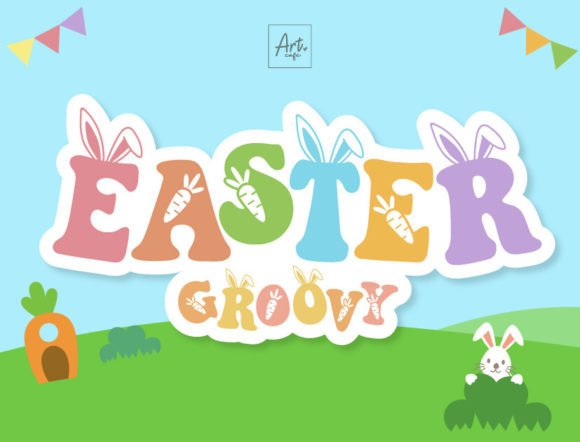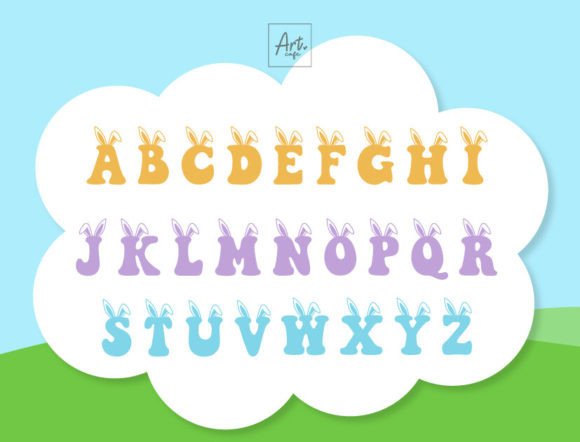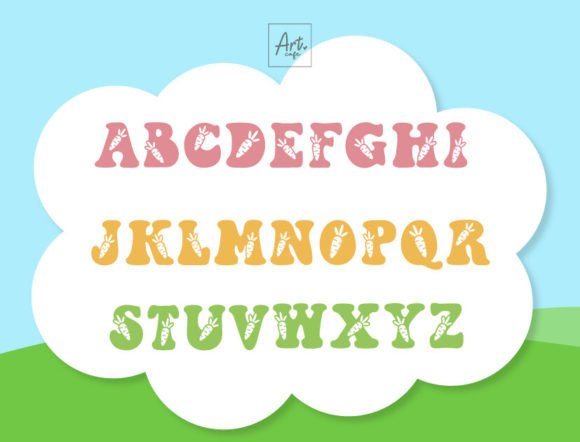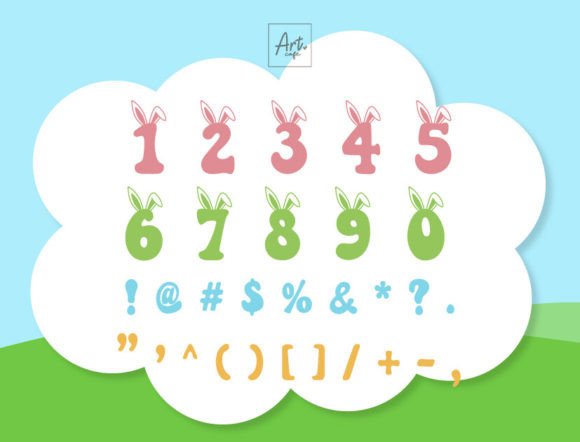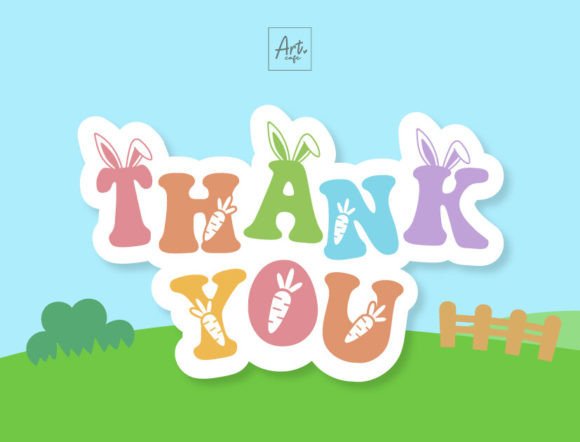
Easter Groovy Font
Unleash the spirit of Easter and the vibrancy of spring with the unique charm of Easter Groovy font! Each character radiates the nostalgic essence of the retro era, beautifully adorned with playful bunny ears and charming carrots. It’s not simply a typeface; it’s an artistic celebration ideal for kid’s alphabets, capturing the joy and wonder of the spring season and the fun-filled Easter holiday. Experience the captivating allure of Easter Groovy; it’s where nostalgia meets whimsy.